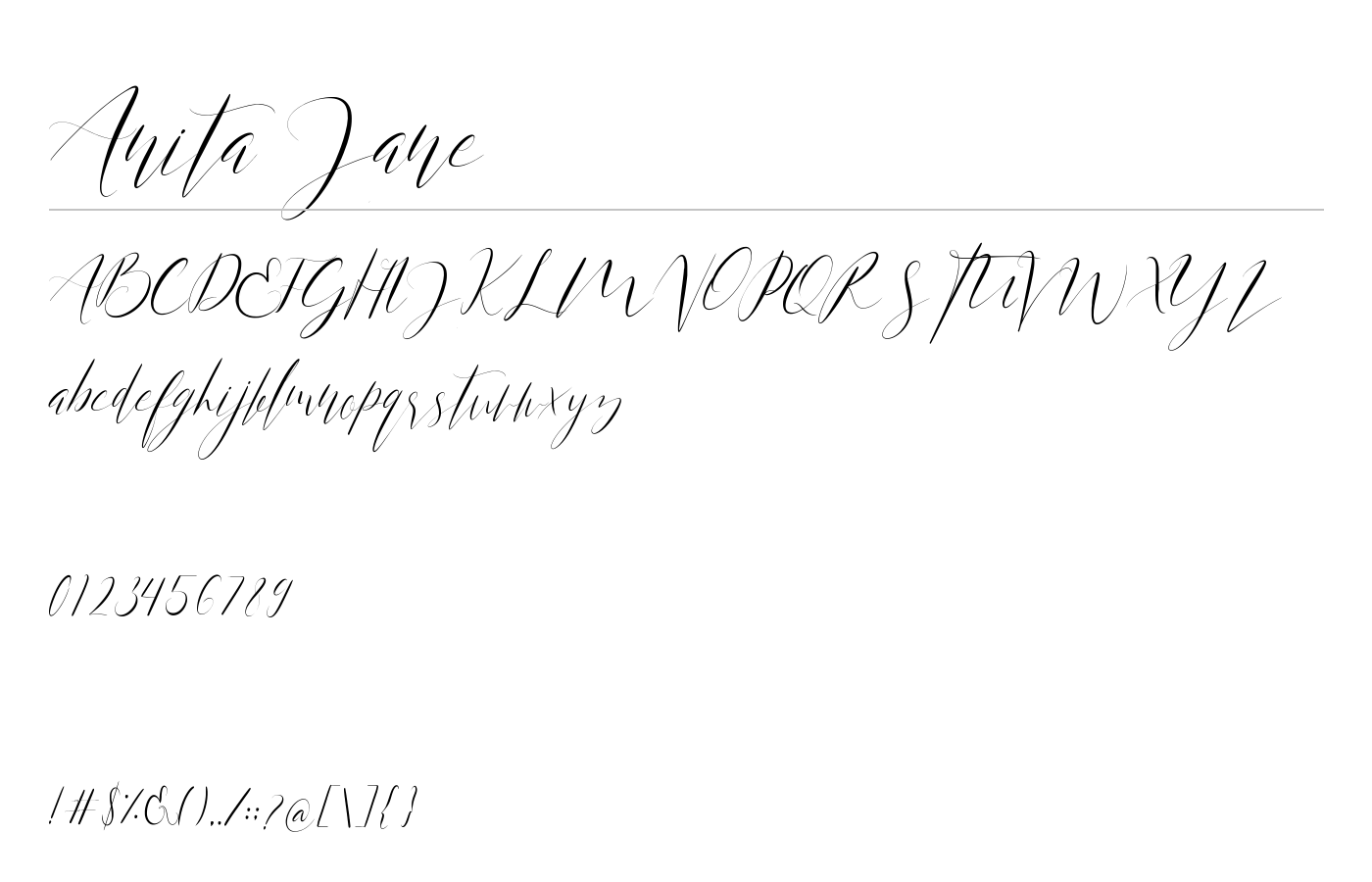
Anita Jane is an elegant, thin script font featuring delicate, flowing letterforms with high contrast between fine hairlines and slightly thicker strokes. Its graceful, handwritten style with impressive swashes and flourishes suits sophisticated and romantic design needs, making it ideal for wedding invitations, branding, and luxury packaging where a refined and personal touch is desired.
Anita Jane Font
About Anita Jane Font
| Font family | Anita Jane Font |
| Designer | Ghazi Humam Fauzan |